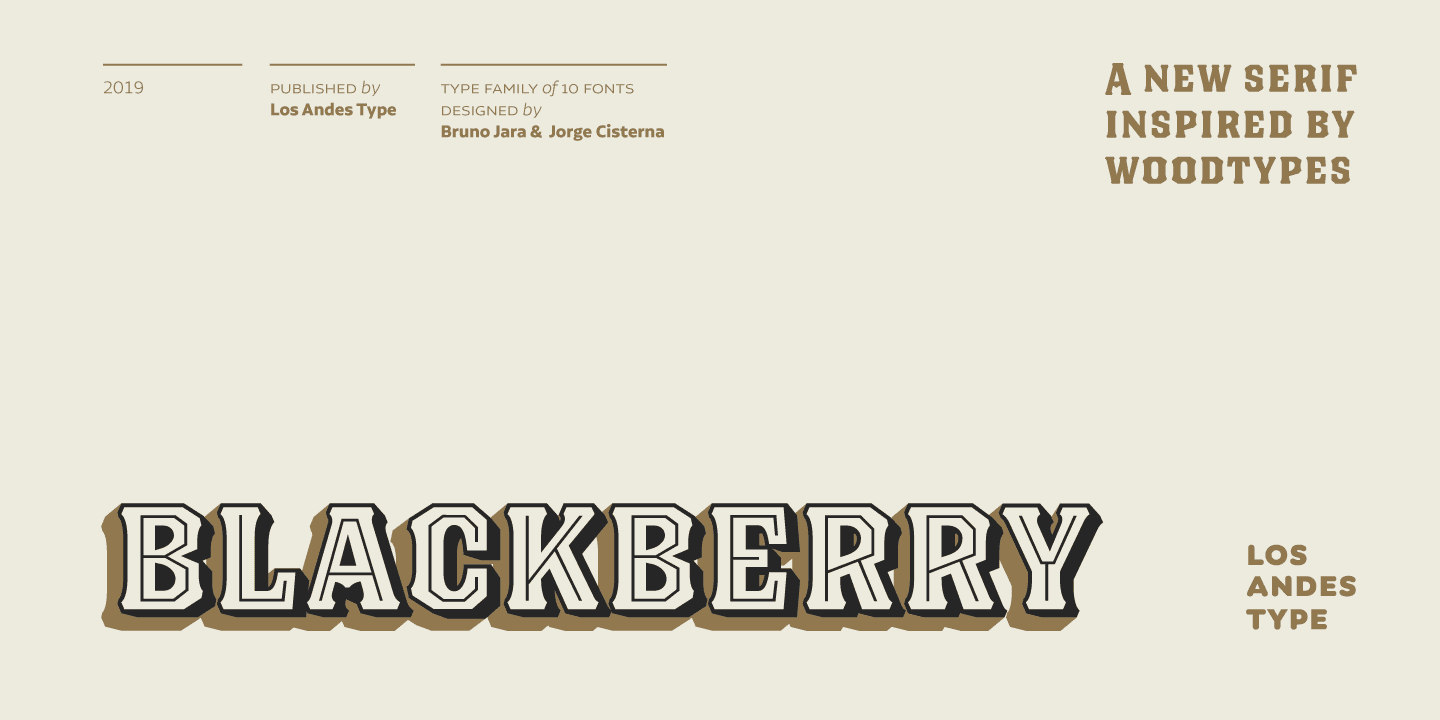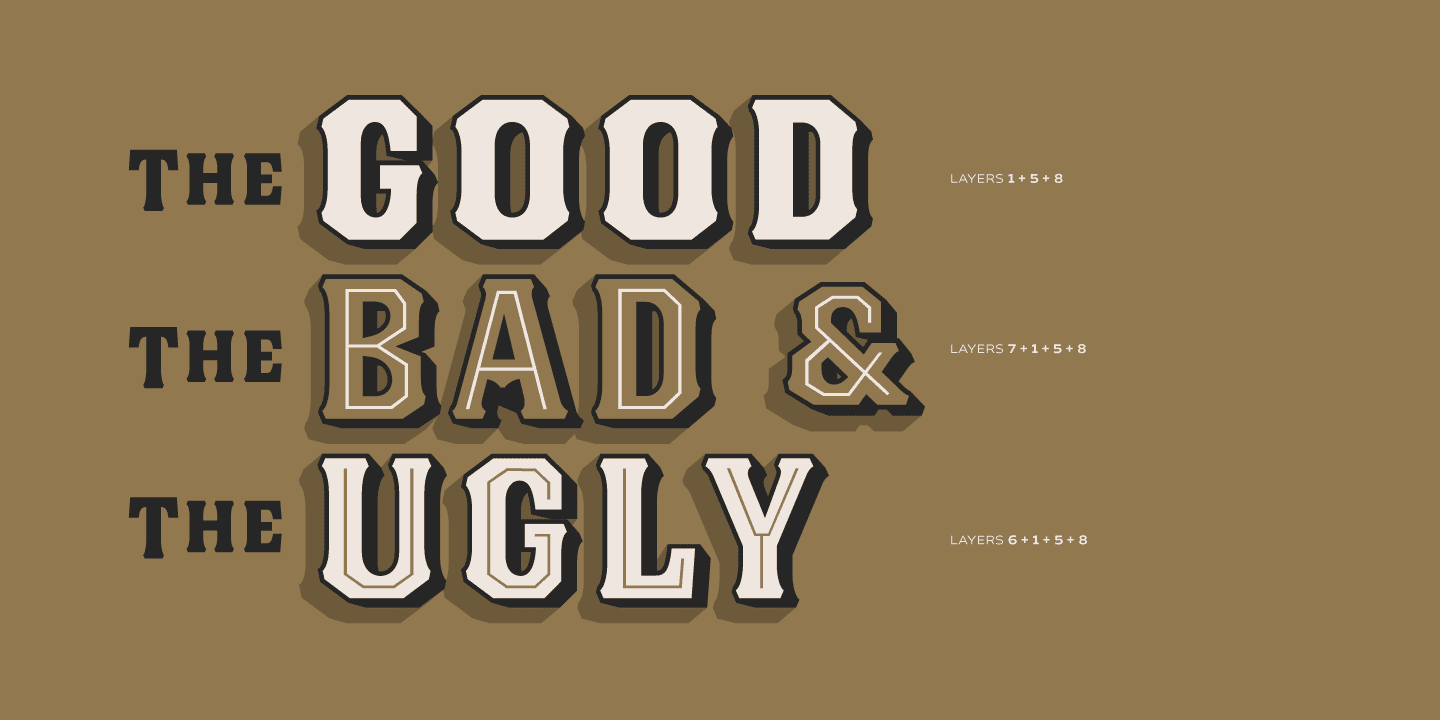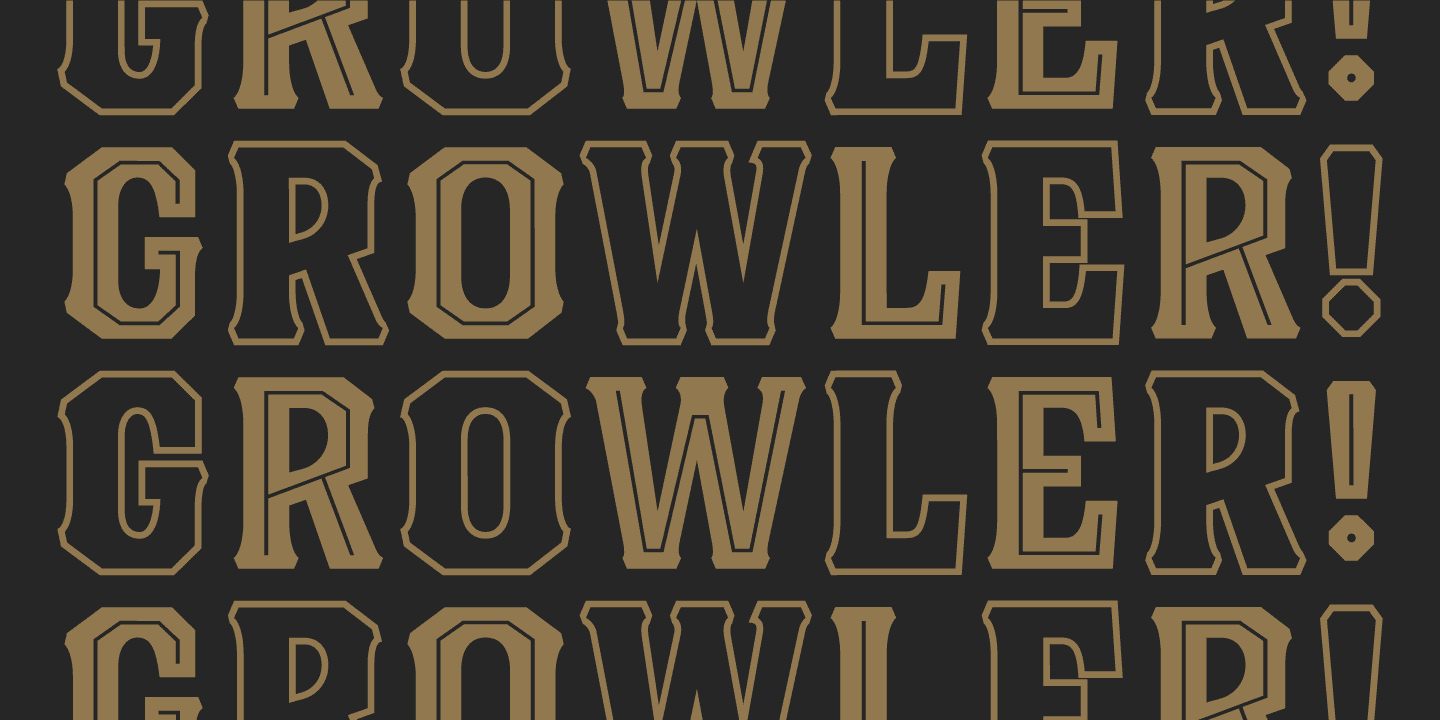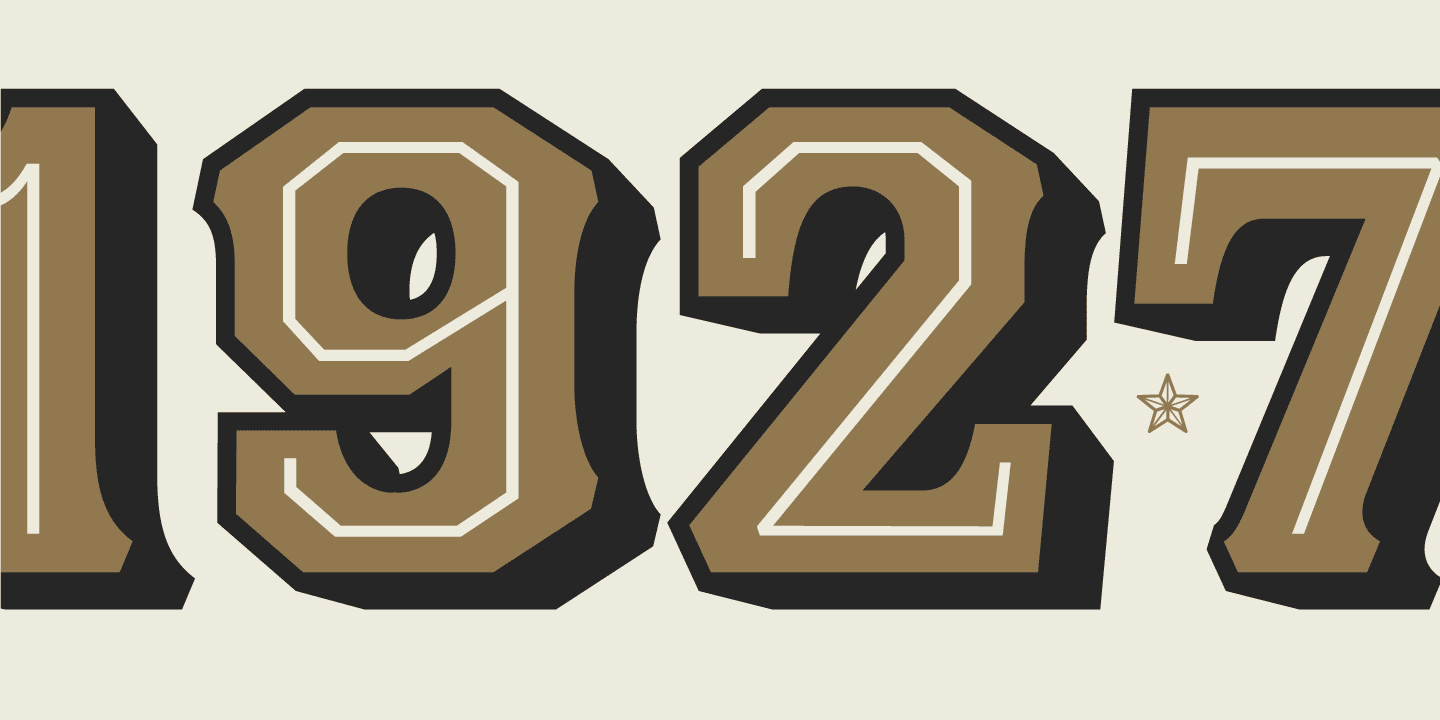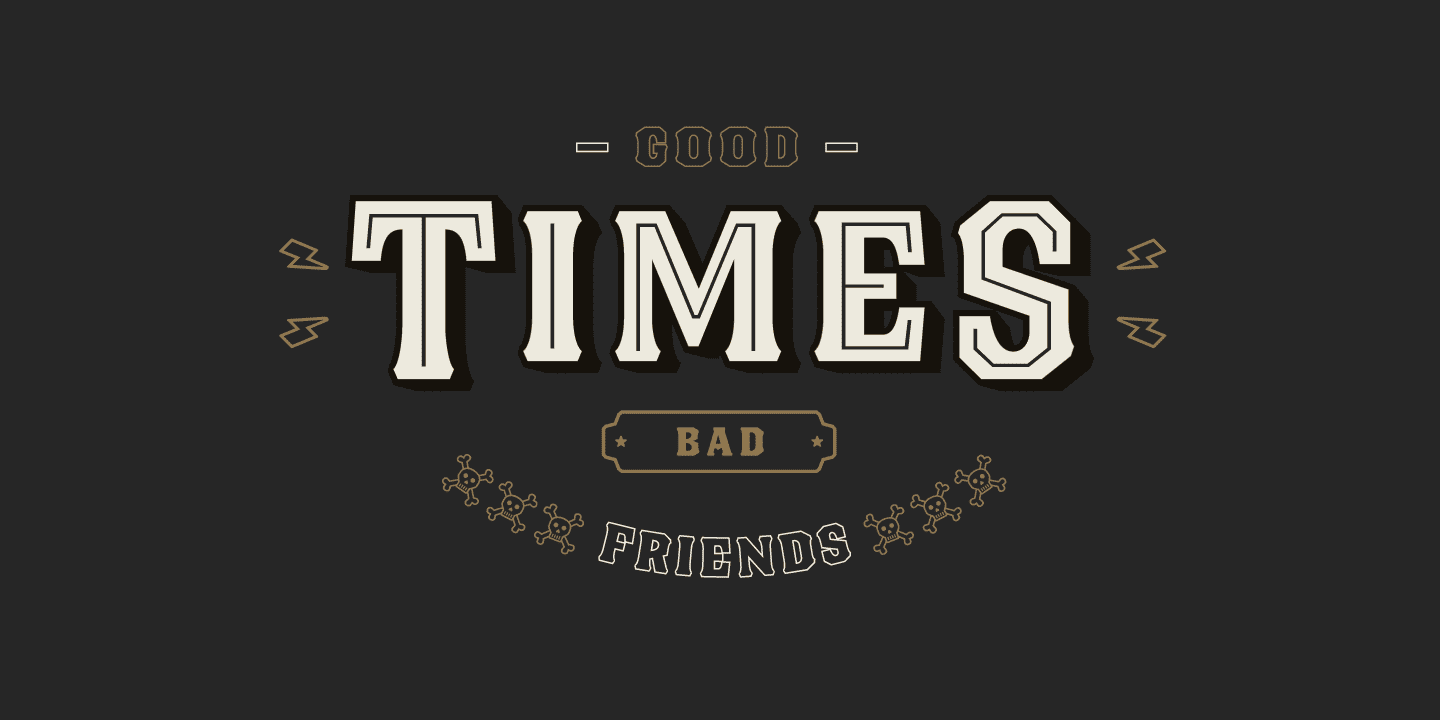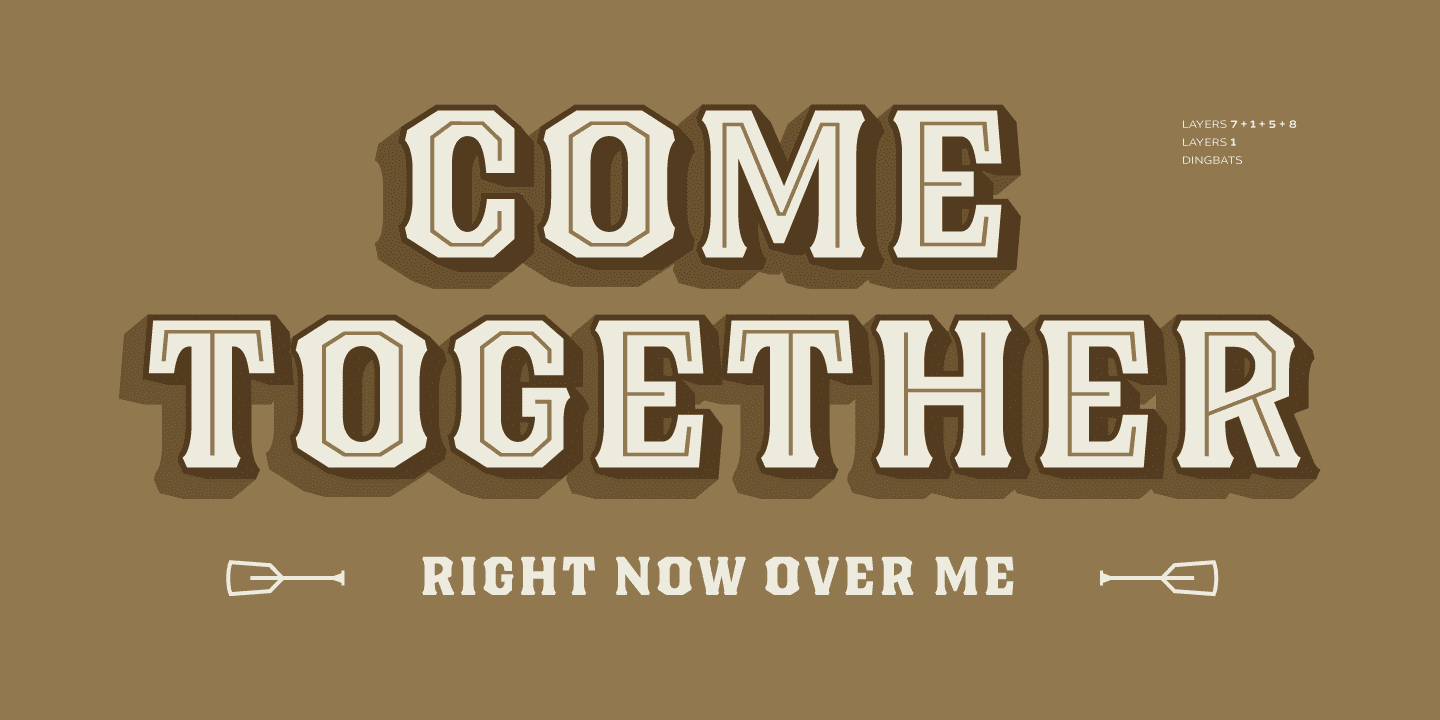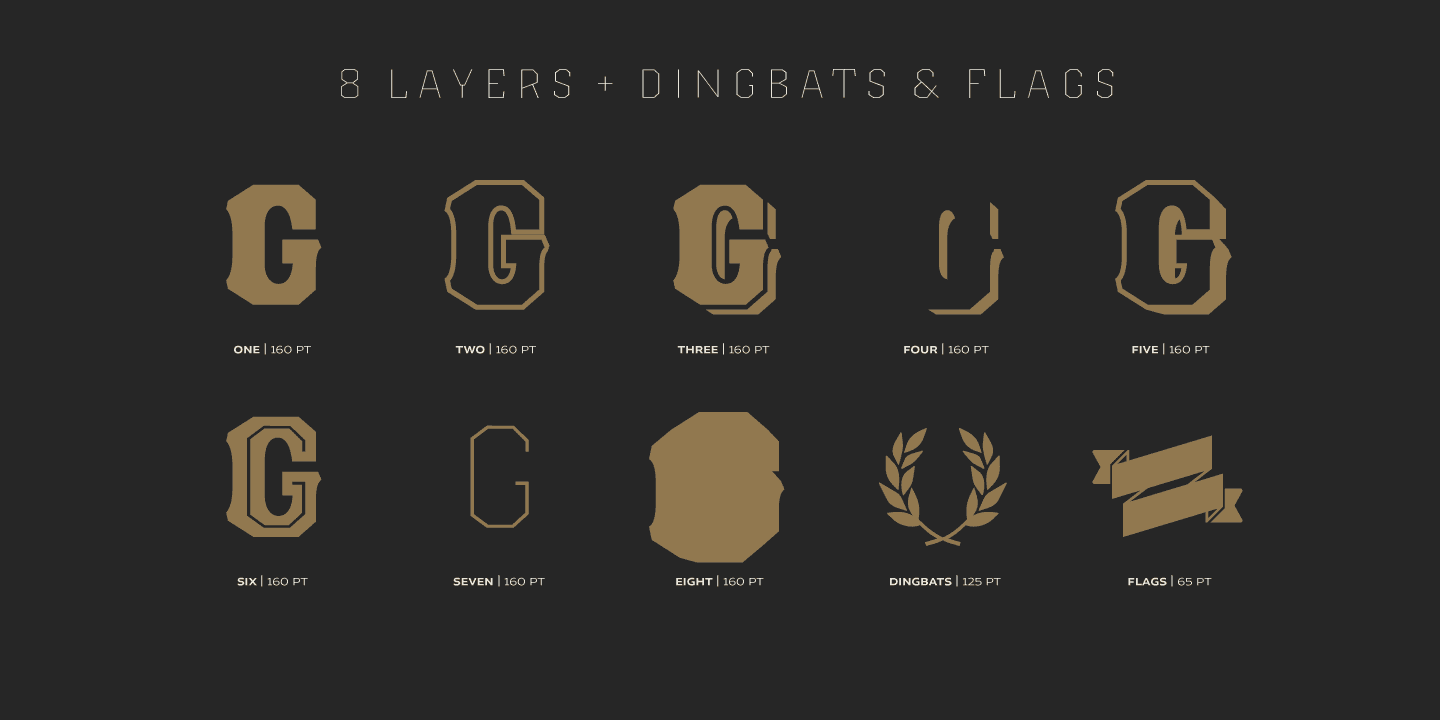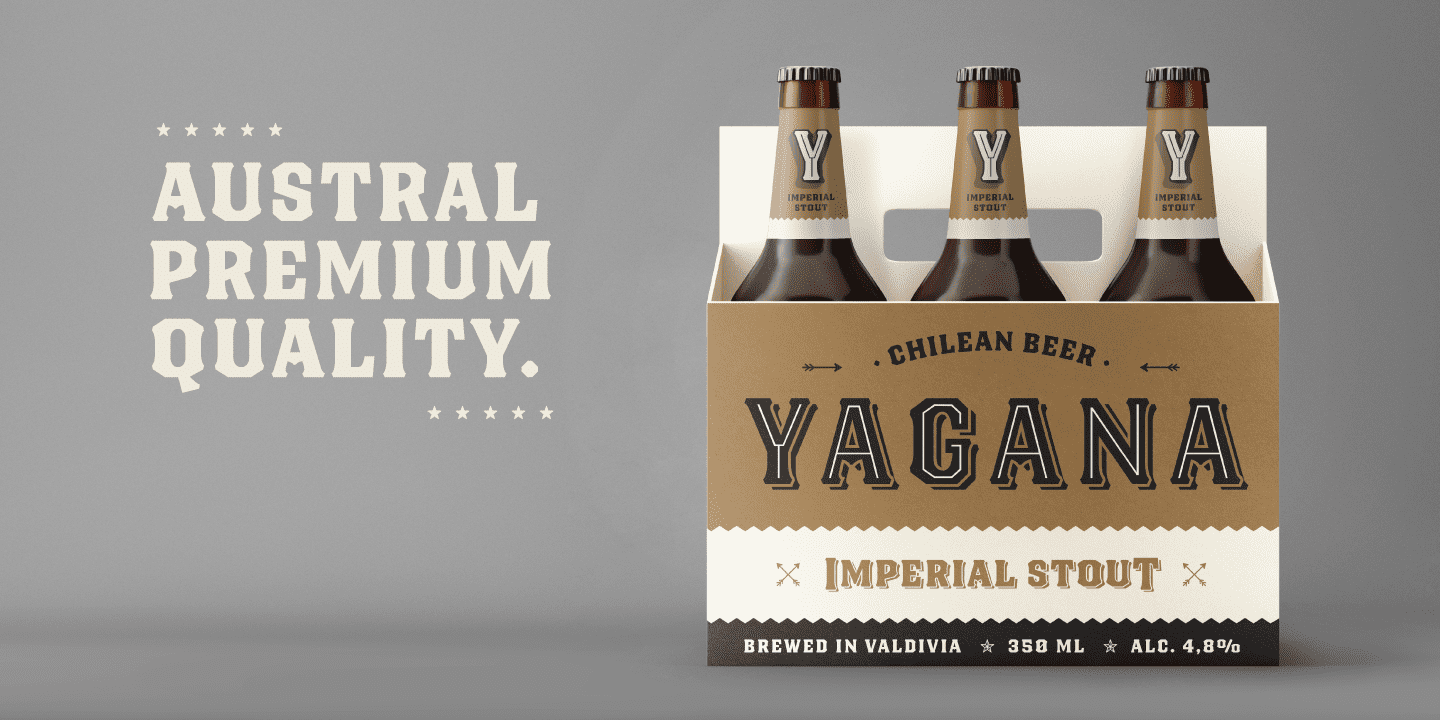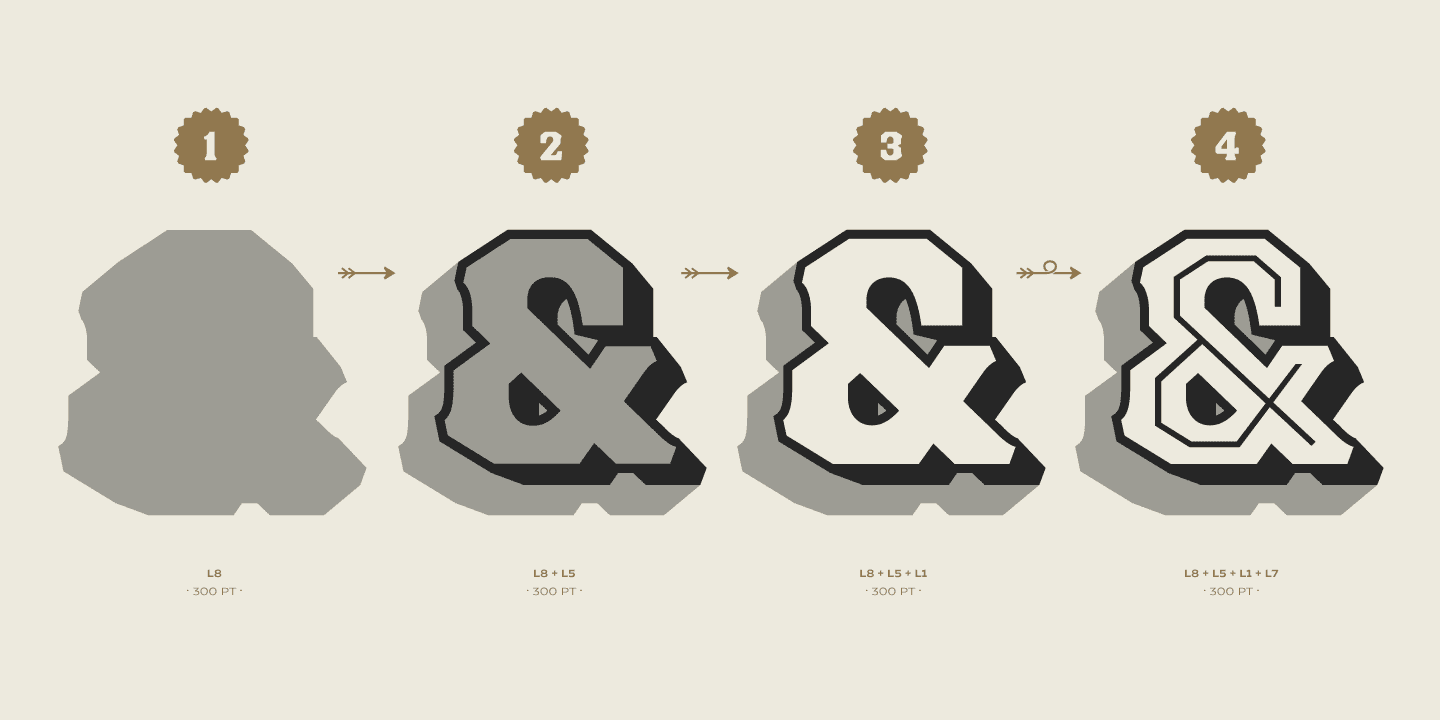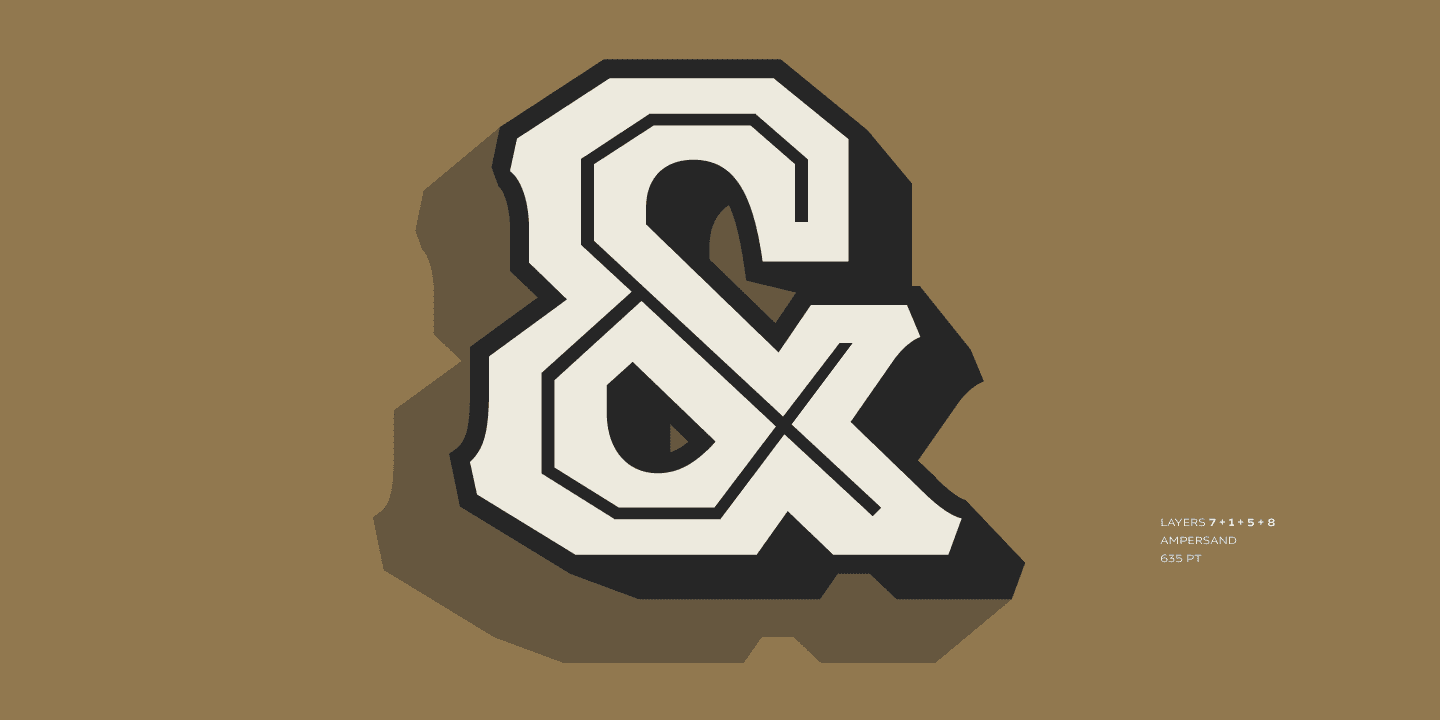
Blackberry Family (10 fonts)
From Los Andes Type
Blackberry is a versatile layered-type font system composed of 3D extrusions, shadows, inline and outline styles as well as dingbats and flags. Its character set supports over 200 Latin-based languages. The Blackberry family offers multiple combinations and a variety of choices to provide high-impact graphics including labels, packaging, branding designs, album covers, movie posters, etc.